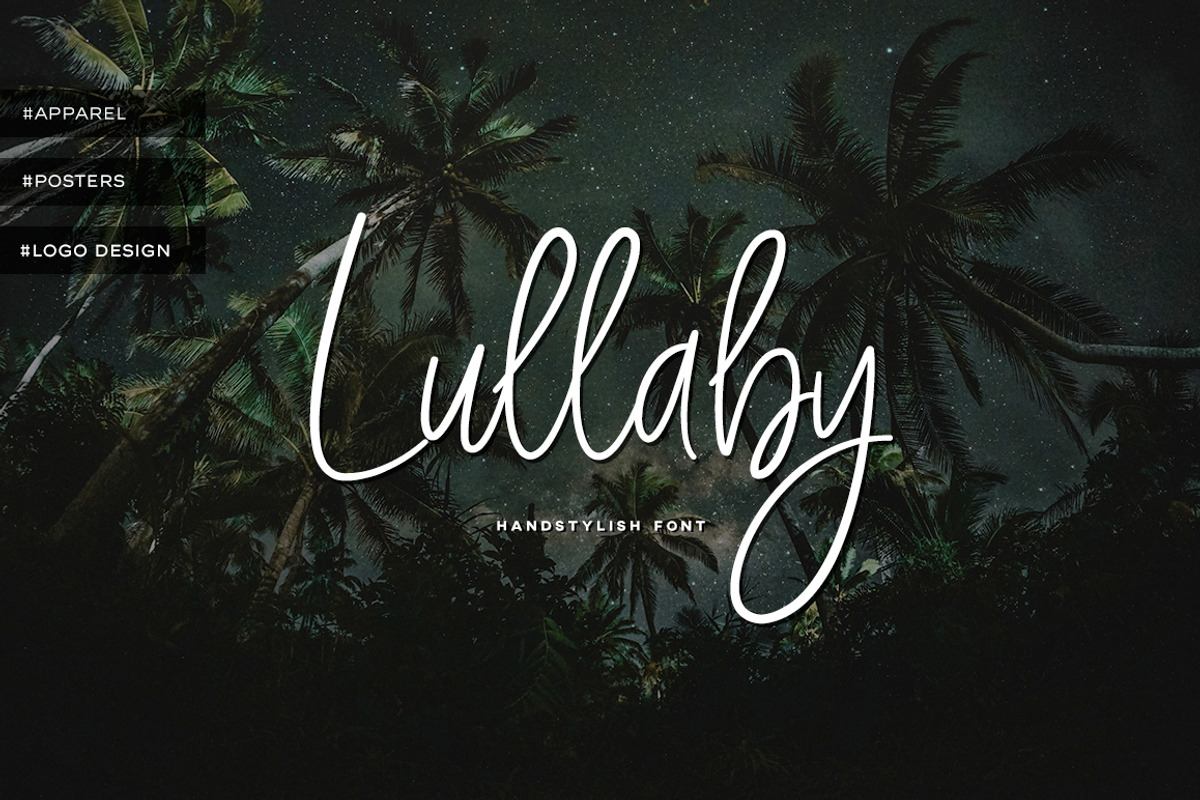
Lullaby Monoline Font Free Download
Lullaby Monoline Font Free Download is a soft, elegant typeface featuring a single-line stroke that gives it a clean and modern look. Perfect for logos, branding, social media quotes, invitations, and minimalist designs, this font combines simplicity with a gentle, handwritten charm. Its delicate curves and consistent line weight make it both versatile and visually soothing.
When you use the Lullaby Monoline Font Free Download, you bring a sense of calm sophistication to your work. It’s great for personal expression and creative projects where a light, airy feel is needed. Whether you're designing for a boutique brand or crafting heartfelt messages, Lullaby adds a graceful, modern touch.